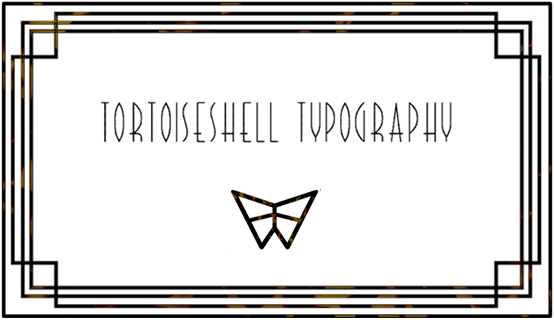
Hard to believe that 10 years have passed since joining Fontstruct. The years have truly flown by and typography went from an unknown, to a delightful hobby. Many many thanks to those who helped me learn and grow on this platform, it's been such a fun adventure with such a positive impact. To celebrate, may I present "magenta" an art deco font for any typing needs. Please enjoy
Another bright stone on your typographic path. Love the minimalist sample. Congrats, pal. Keep walking.
The letter O does look like a lens, which looks cool…
BWM, while it was unintentional, it's certainly a fun coincidence. Glad you find it cool
Great hairline deco.